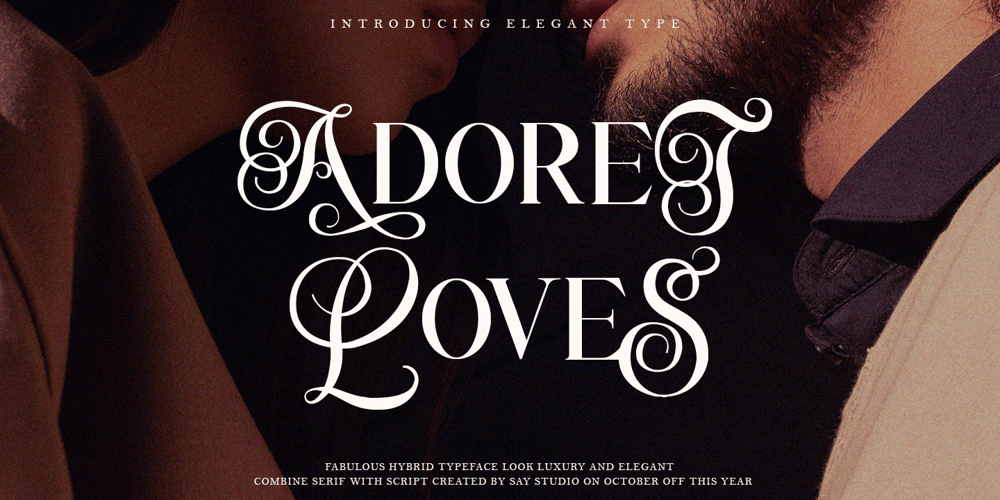
Adoret Loves
Adoret Loves font
Adoret Loves Font Family was designed by Mussyayin and published by Say Studio. Adoret Loves contains 2 styles and family package options. About the ProductAdoret Loves is a beautiful a Fabulous hybrid font from modern serif with elegant script . come with 2 versions regular & italic.Adoret Loves is made mainly for headlines, titles, and other short texts and is well-suited for advertising, vintage mood board, branding, logotypes, packaging, titles, editorial design, modern logos, websites, social media quotes, wedding branding, modern and vintage design.What you get:- Adoret Loves Regular – Adoret Loves Italic- Accessible in the Adobe Illustrator, Adobe Photoshop, Coreldraw, even work on Microsoft Word. PUA Encoded Characters – Fully accessible without additional design software. – Fonts include multilingual support.Thanks, Have a wonderful DaySay Studio